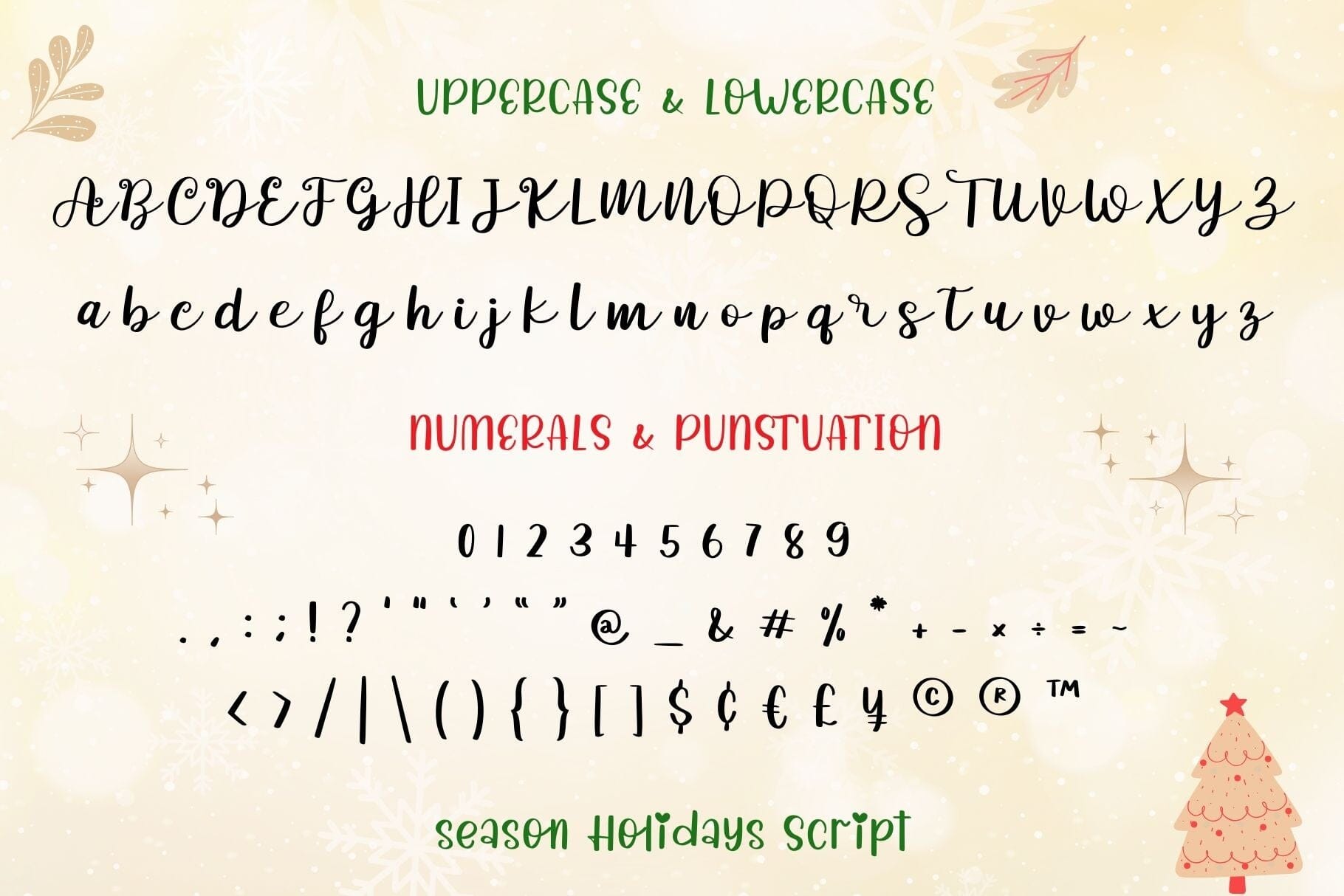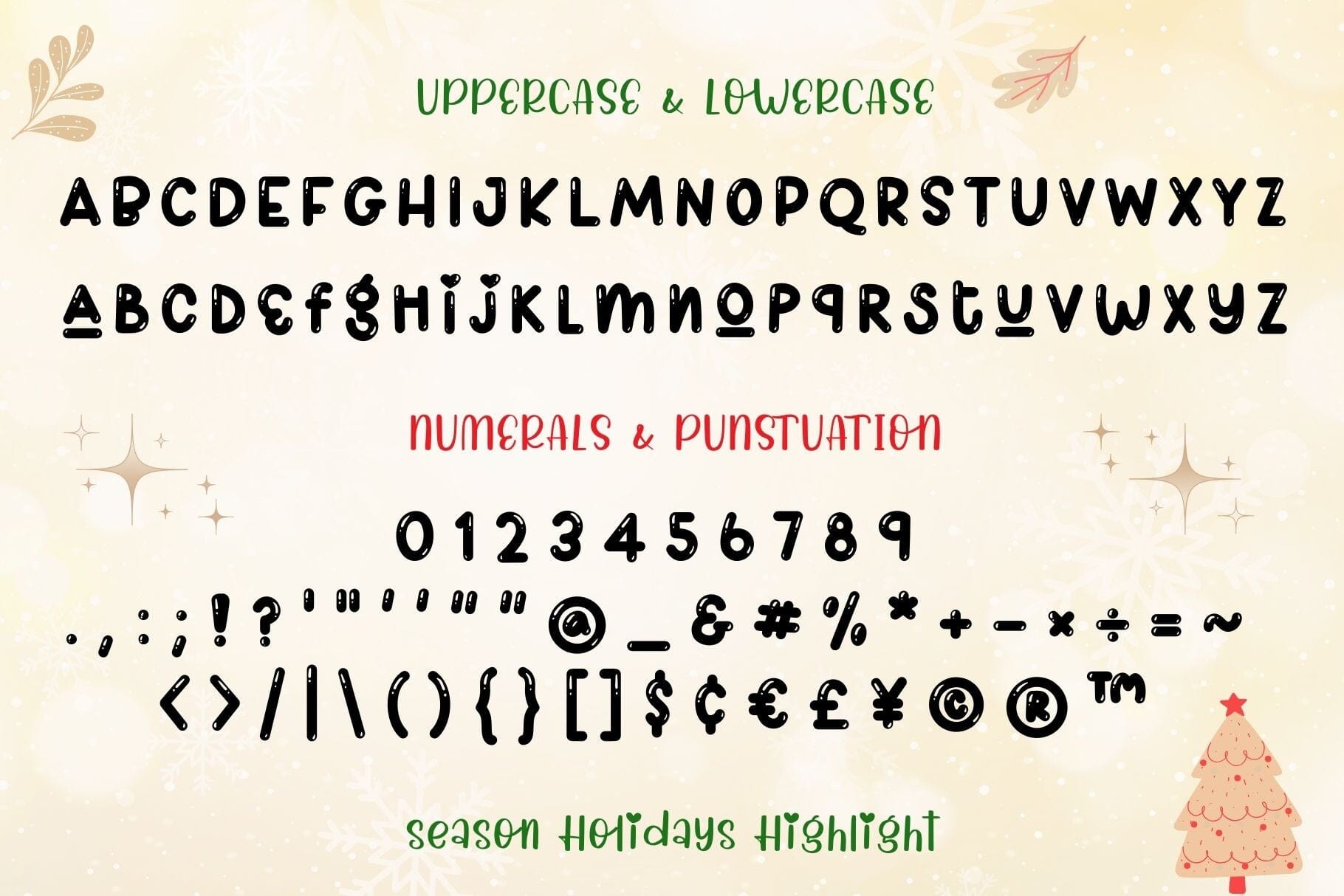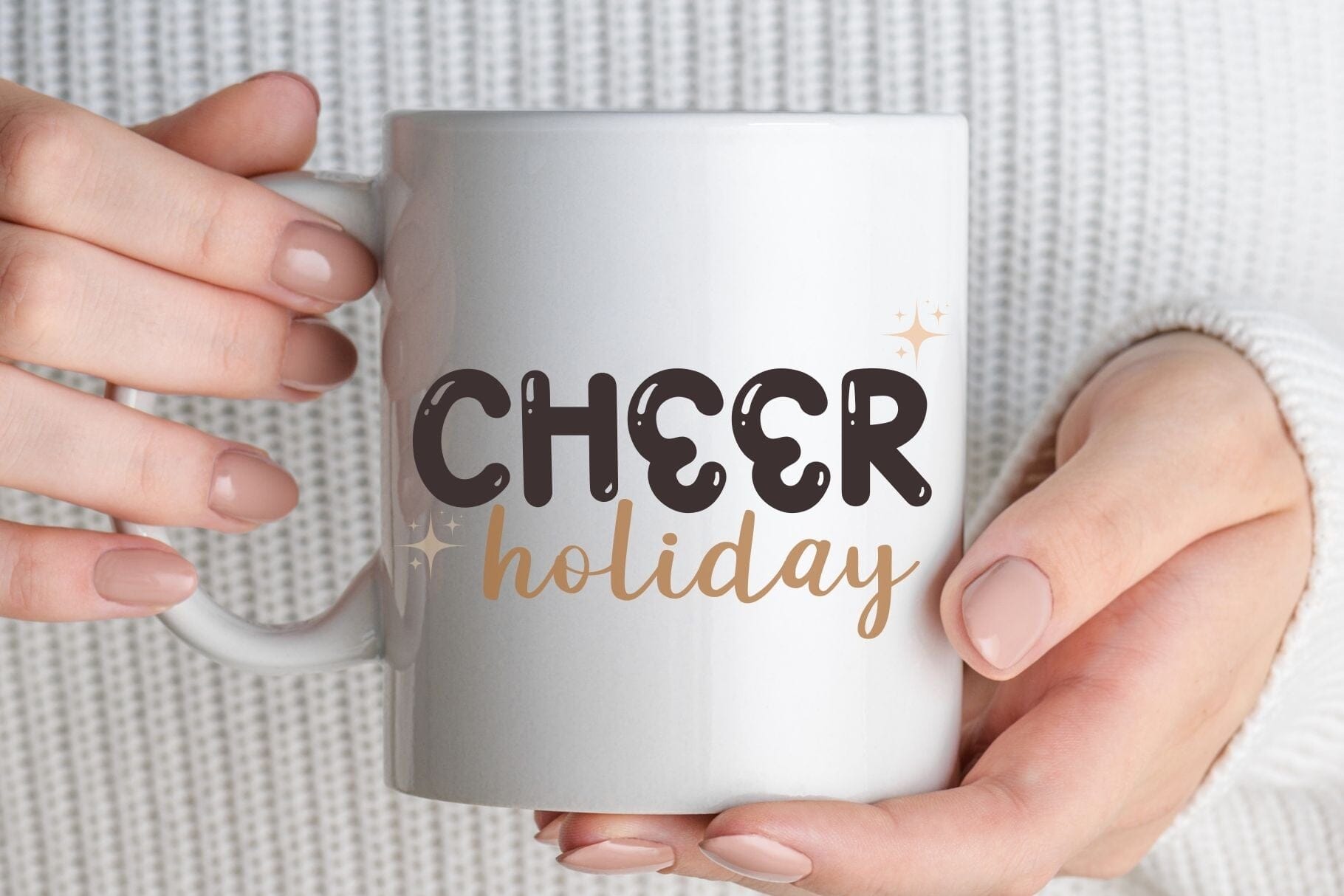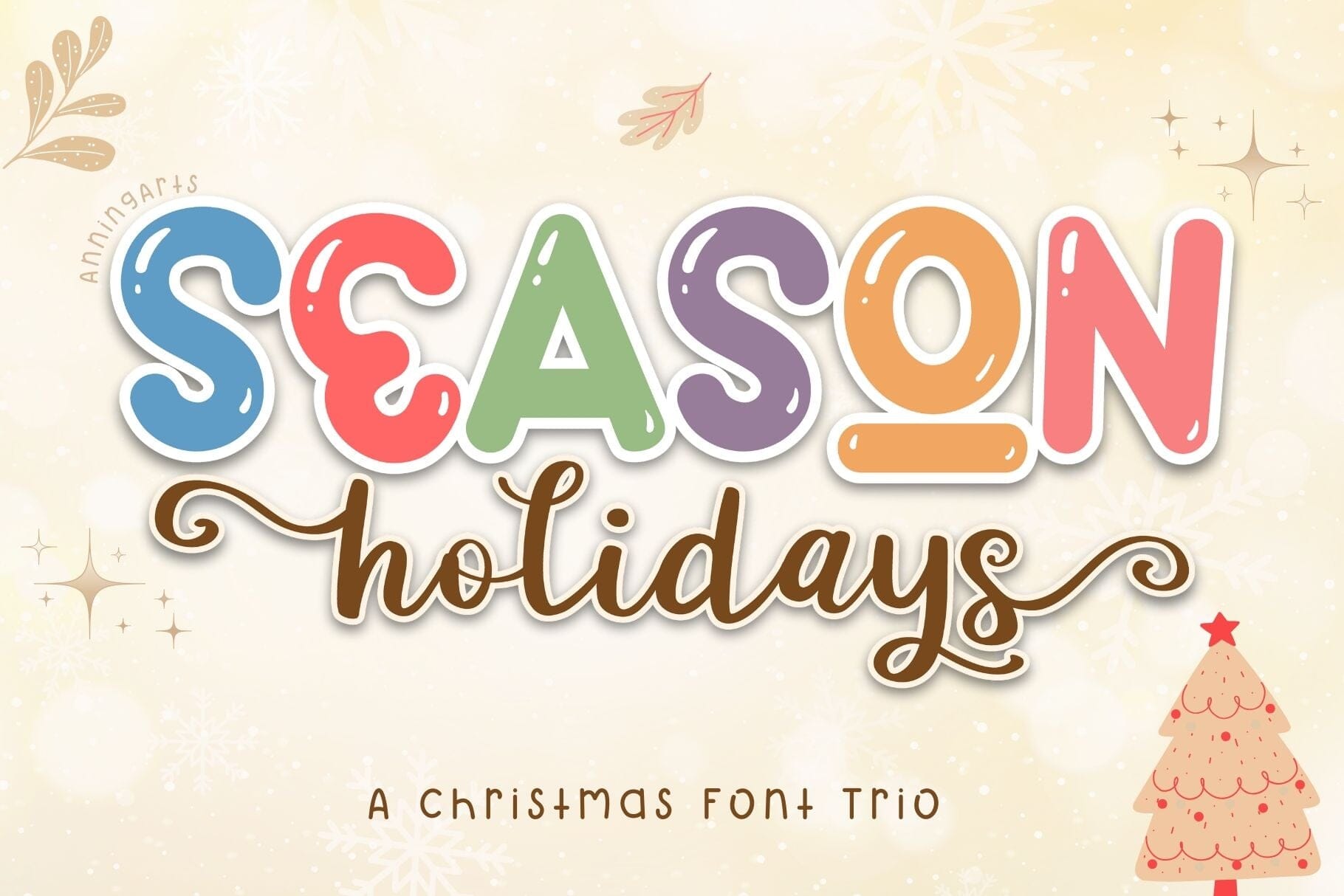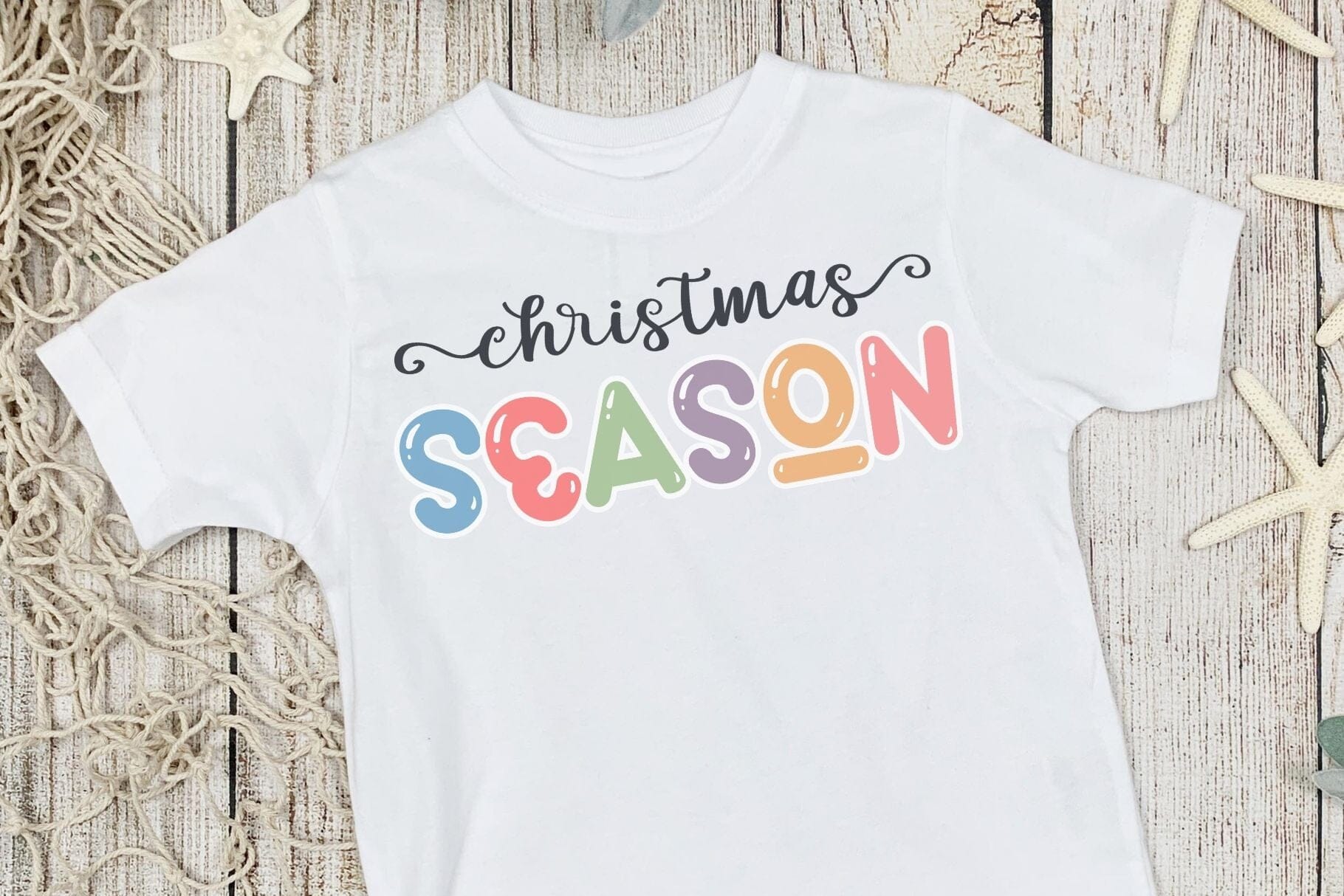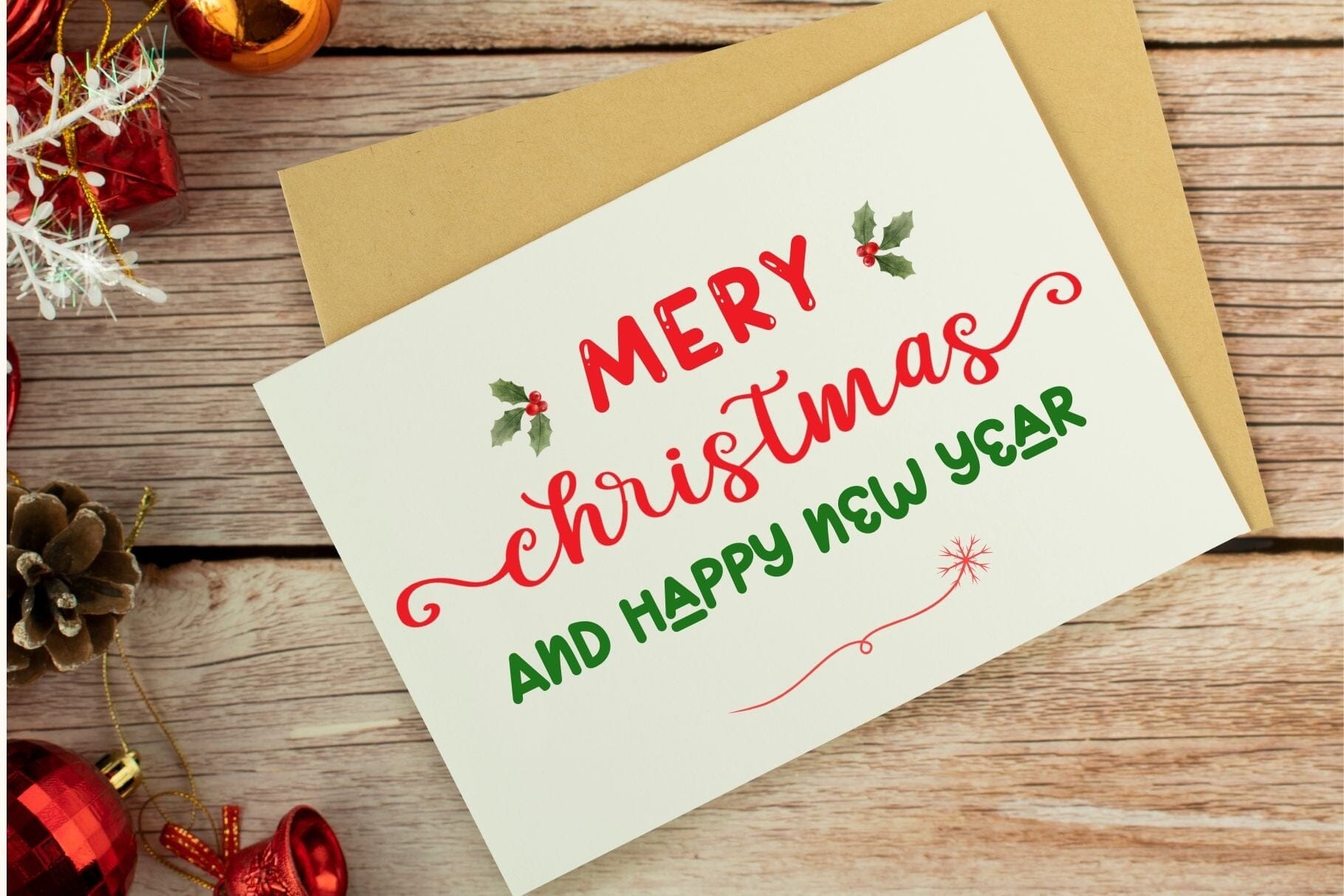
About Season Holidays Font Trio
Season Holidays is a playful Christmas font Trio . This set consists of a script font and a handwritten font, providing a wide range of unique and attention-grabbing design choices. You can utilize this pair of fonts to create various designs, including mugs, bags, shirts, pillows, and more.